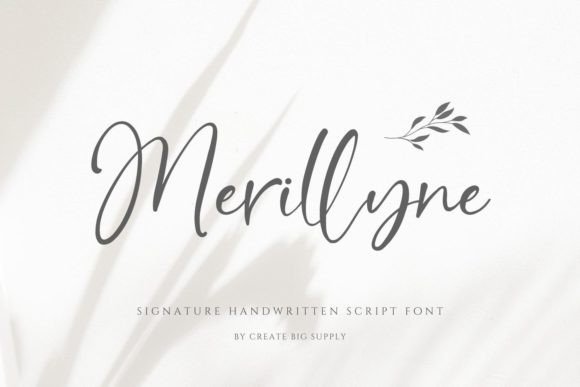
Step into the realm of sophistication and elegance with Merillyne Script Signature Handwriting Font, a masterpiece crafted to bring a touch of individuality to your designs. This enchanting font boasts a beautiful cursive style, meticulously designed to add a hint of allure to your projects. Whether you're seeking to create unforgettable logos, captivating invitations, or polished branding, Merillyne delivers a seamless handwritten look that exudes charm and personality.
Indulge in a symphony of creativity with Merillyne, embracing its captivating uppercase and lowercase letters, graceful numbers, essential punctuations, comprehensive multilingual support, and PUA encoding that grants effortless access to a trove of special characters. Elevate your designs with the timeless allure of this script signature font, unlocking a world of endless possibilities.
Immerse yourself in the beauty of Merillyne, a font that captures the essence of elegance and individuality. Experience the joy of crafting stunning logos that leave a lasting impression, design invitations that evoke a sense of wonder, and develop branding that radiates sophistication. Merillyne's enchanting handwritten style transforms your designs into works of art, captivating your audience with its timeless charm.